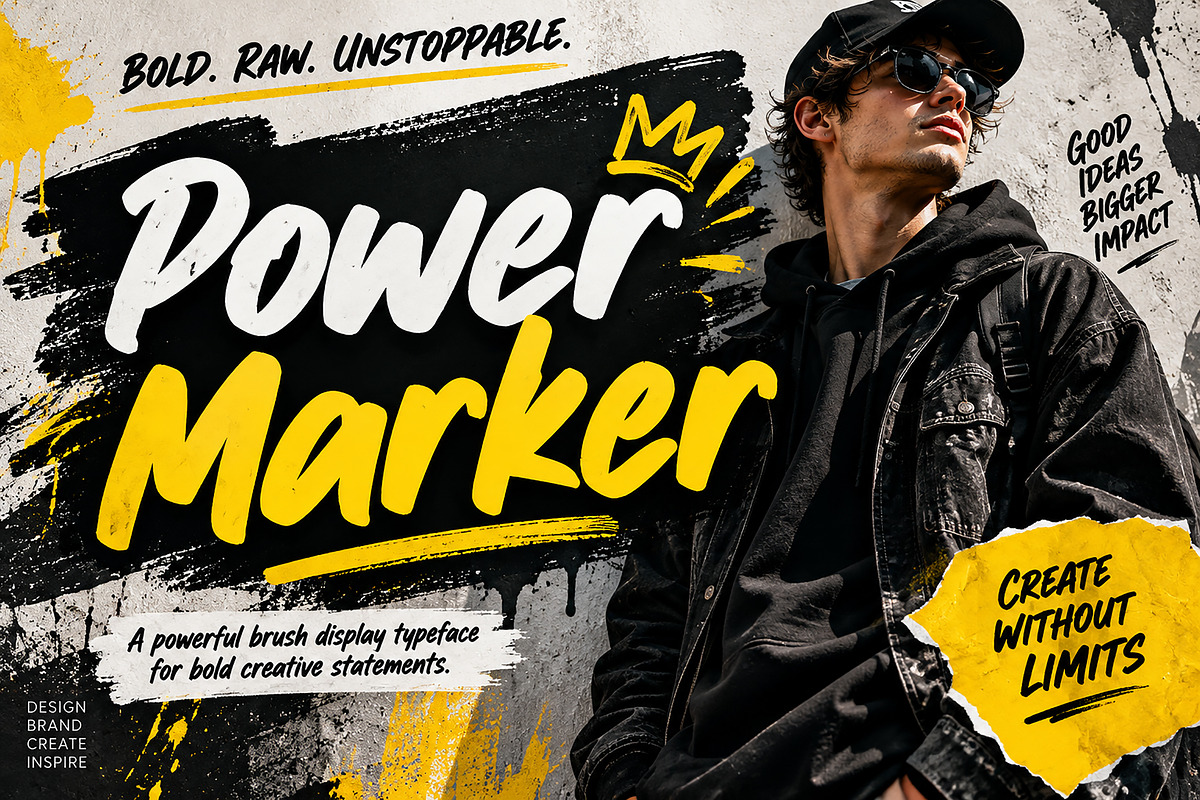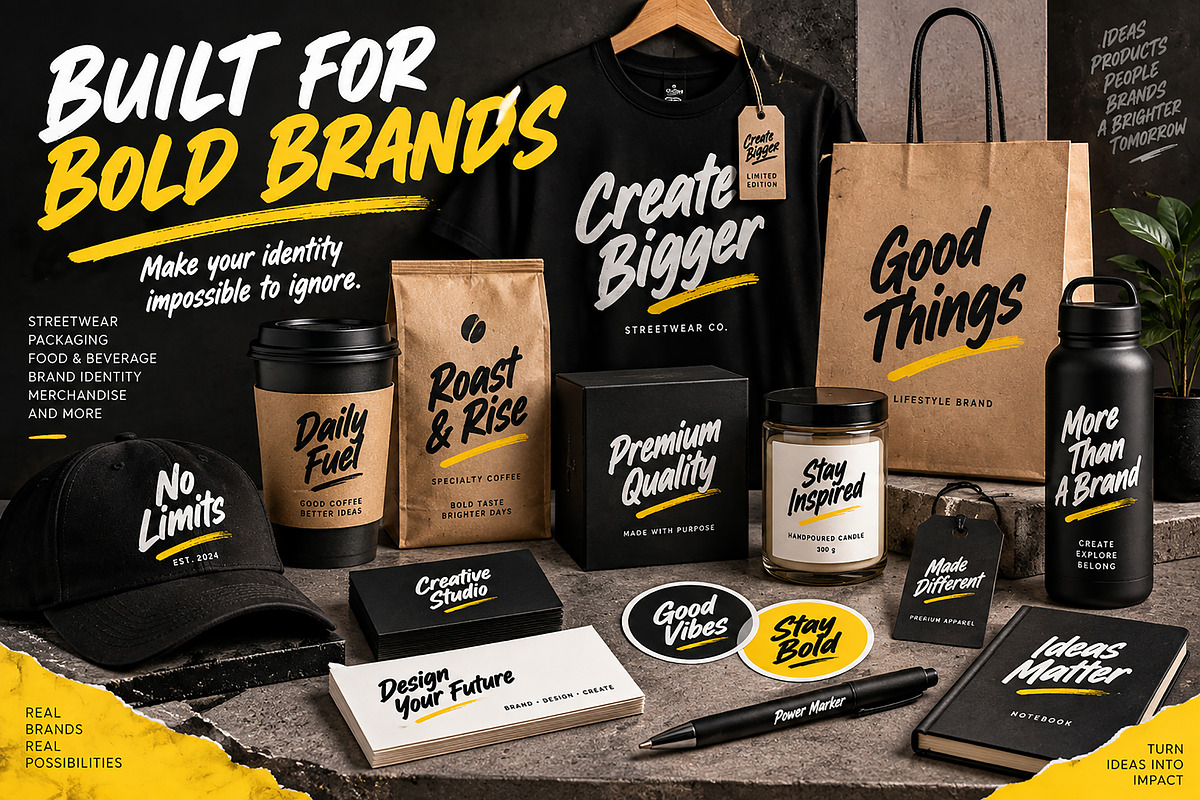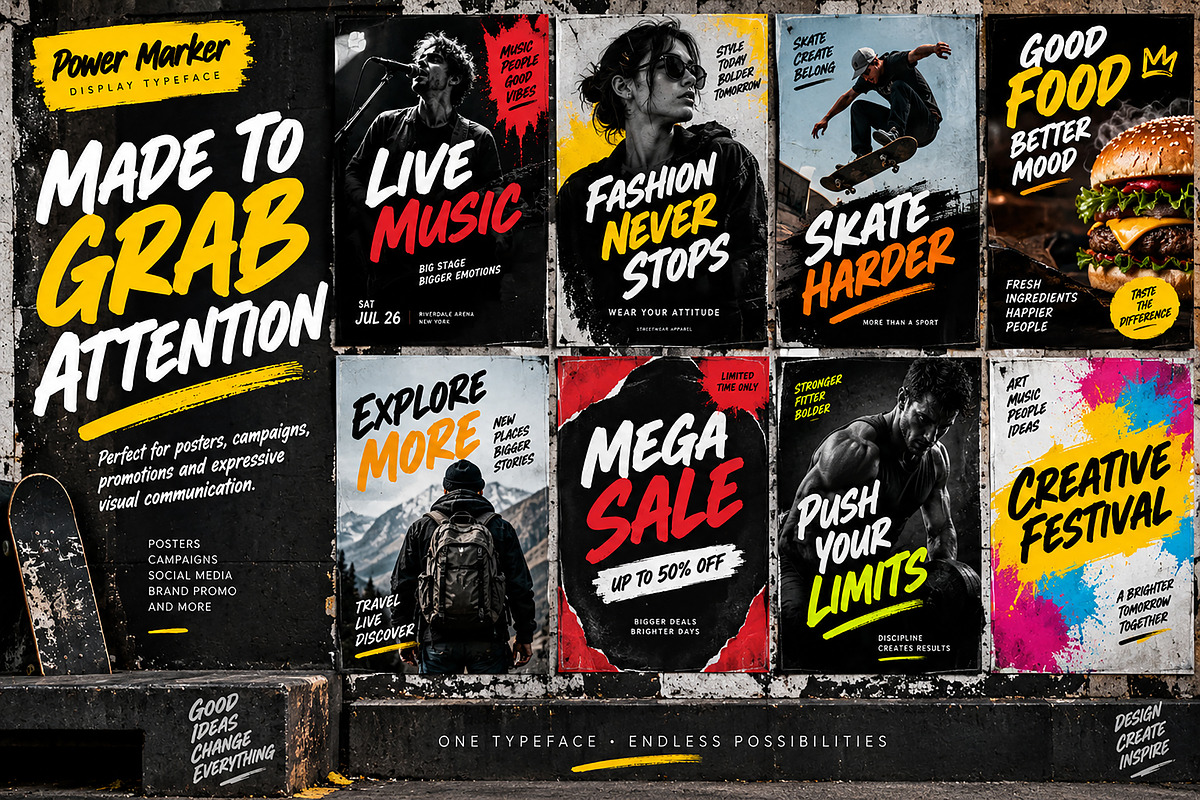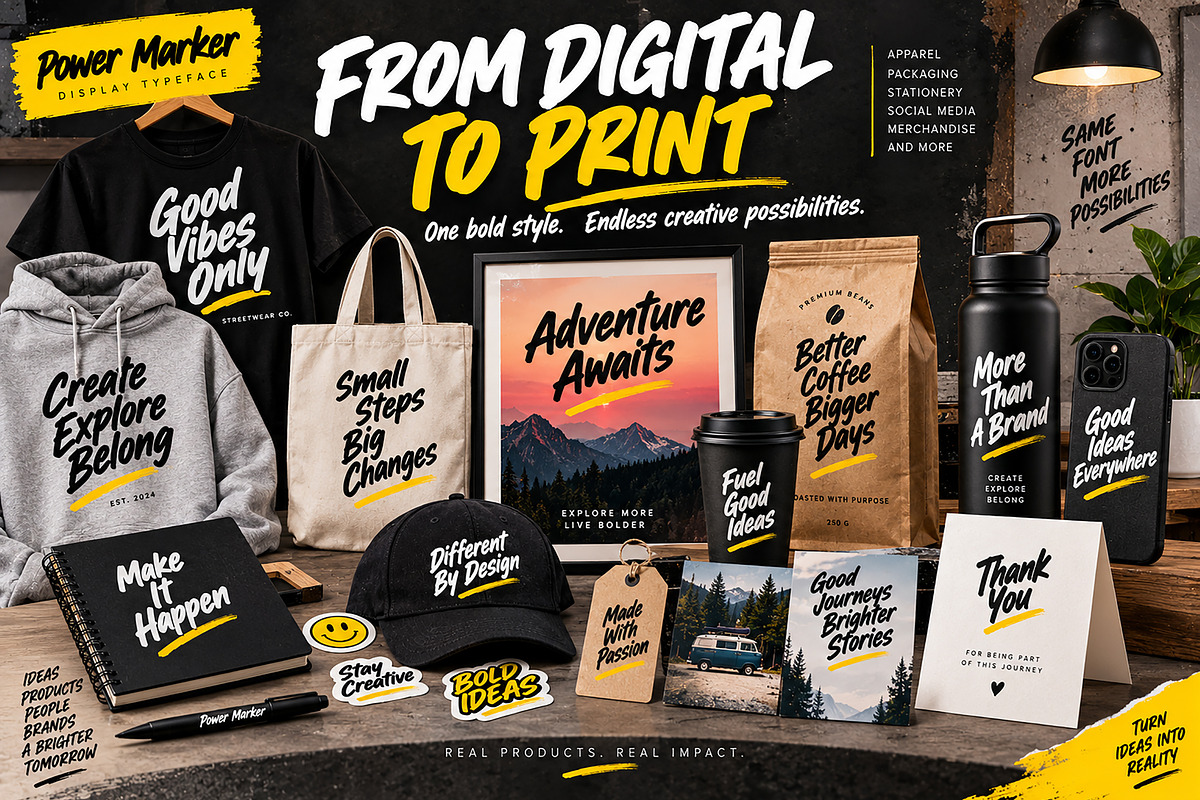
Power Marker - Display Typeface
Power Marker is a bold and energetic brush display font designed to bring a strong handmade character and expressive attitude to your creative projects. Its dynamic marker-inspired strokes create an authentic hand-painted feel while maintaining a powerful visual presence.
Perfect for projects that need to stand out, grab attention, and communicate a bold creative personality. Power Marker works especially well for branding, posters, apparel, packaging, advertising, social media graphics, merchandise, labels, stickers, and other eye-catching display designs.
Branding & Logo Design
Streetwear & Apparel
Posters & Advertising
Labels & Stickers
Merchandise Design
T-Shirt & Hoodie Designs
Event & Music Posters
Promotional Materials
Coffee & Food Branding
Creative Campaigns
Editorial & Display Design
Print & Digital Projects
Style: Bold Brush / Marker Display
Power Marker is made for designers who want to add a bold, raw, energetic, and handcrafted look to their work.
Create boldly. Make an impact.